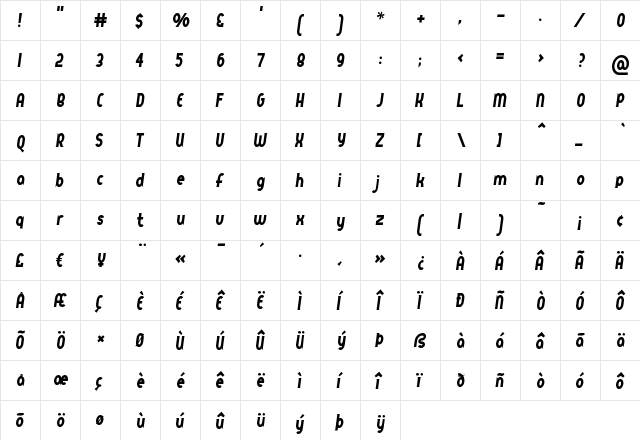
QueerStreet Regular
Design Context for QueerStreet Typeface
QueerStreet takes a measured approach to typography — its balanced proportions and neutral character make it a reliable workhorse for both digital and print work.